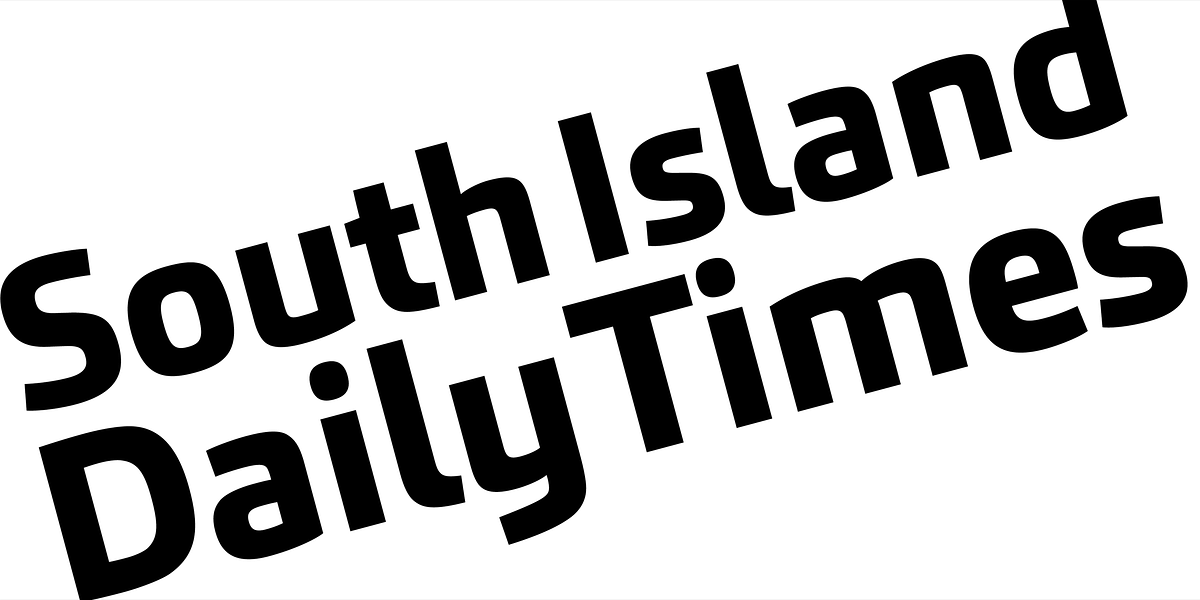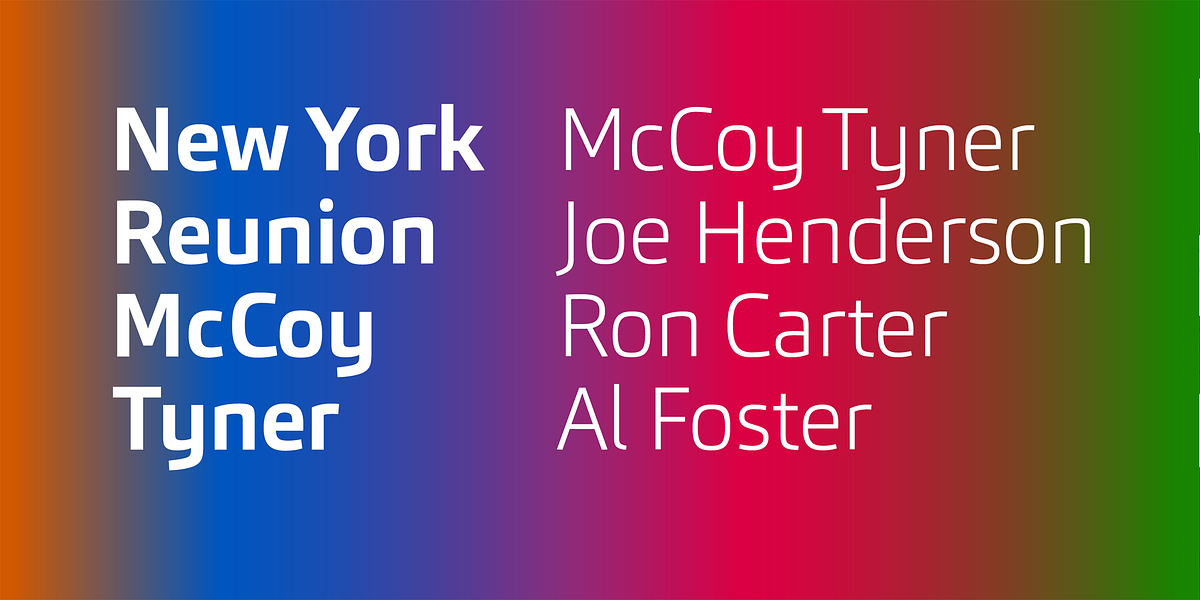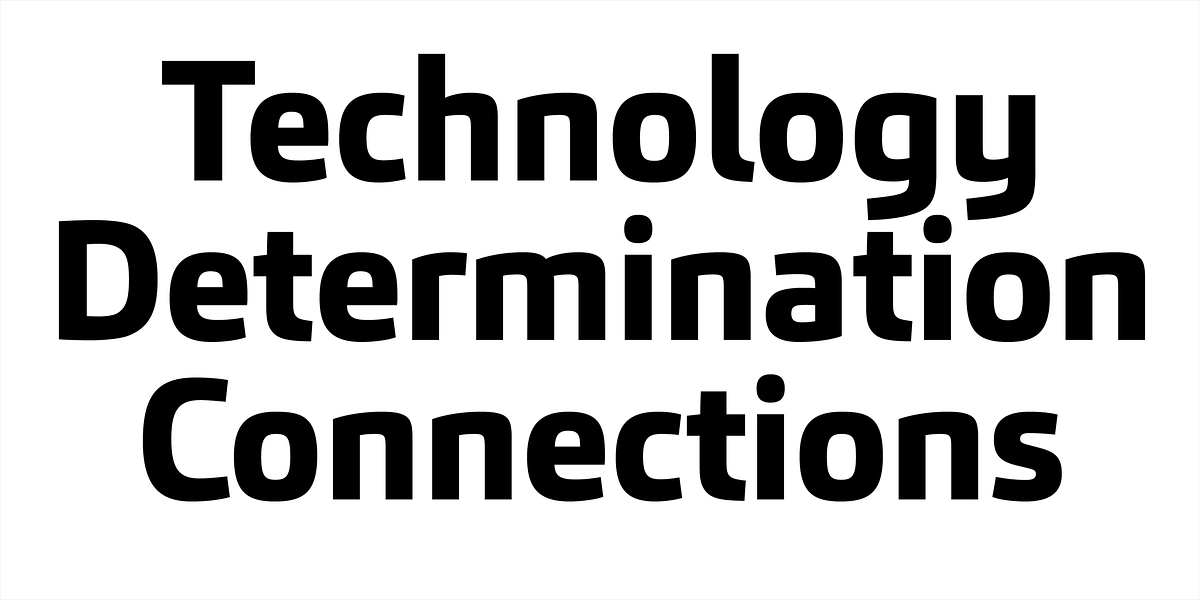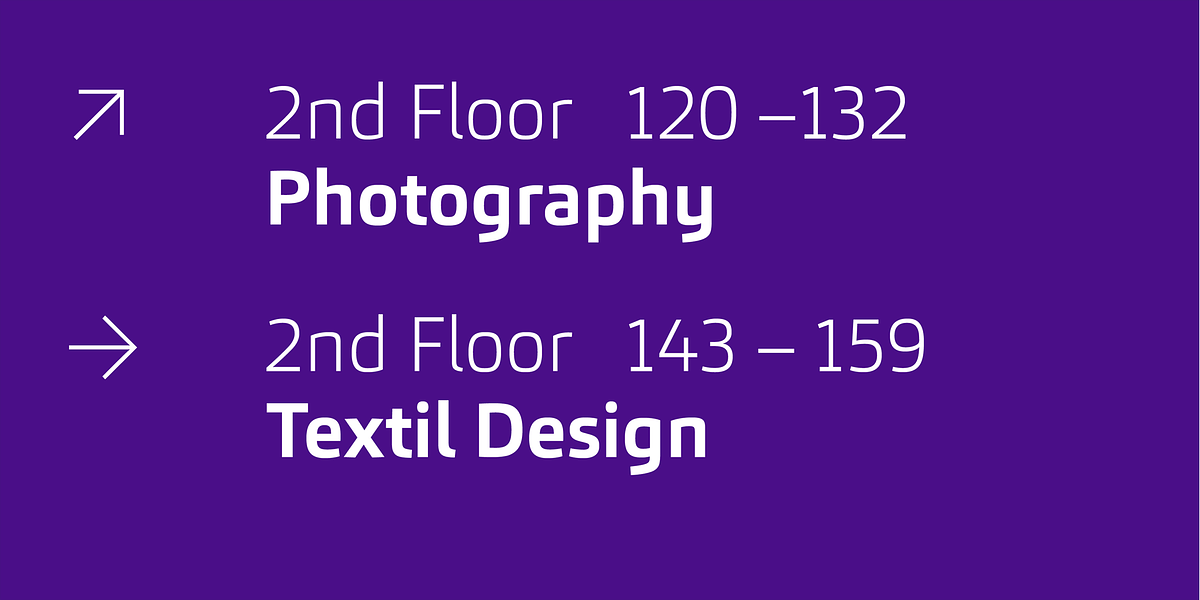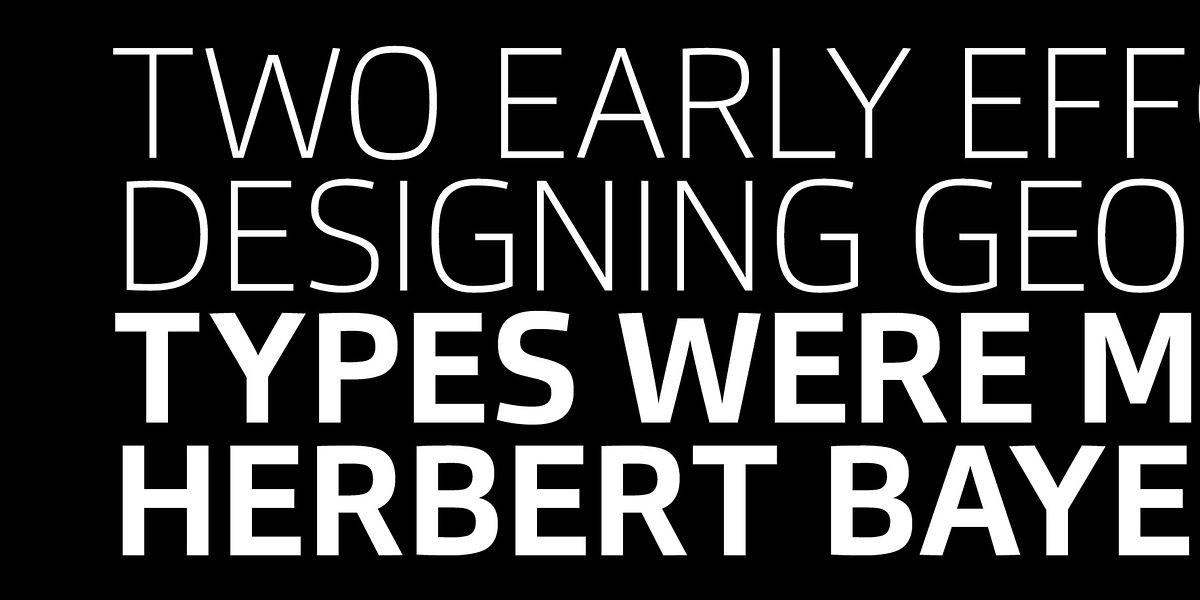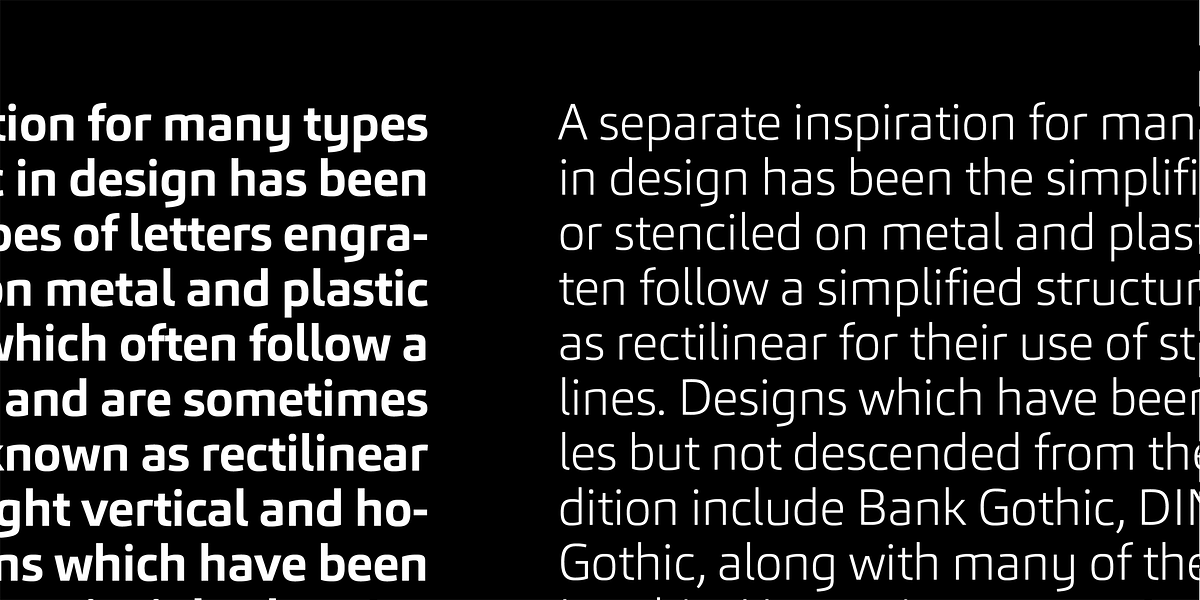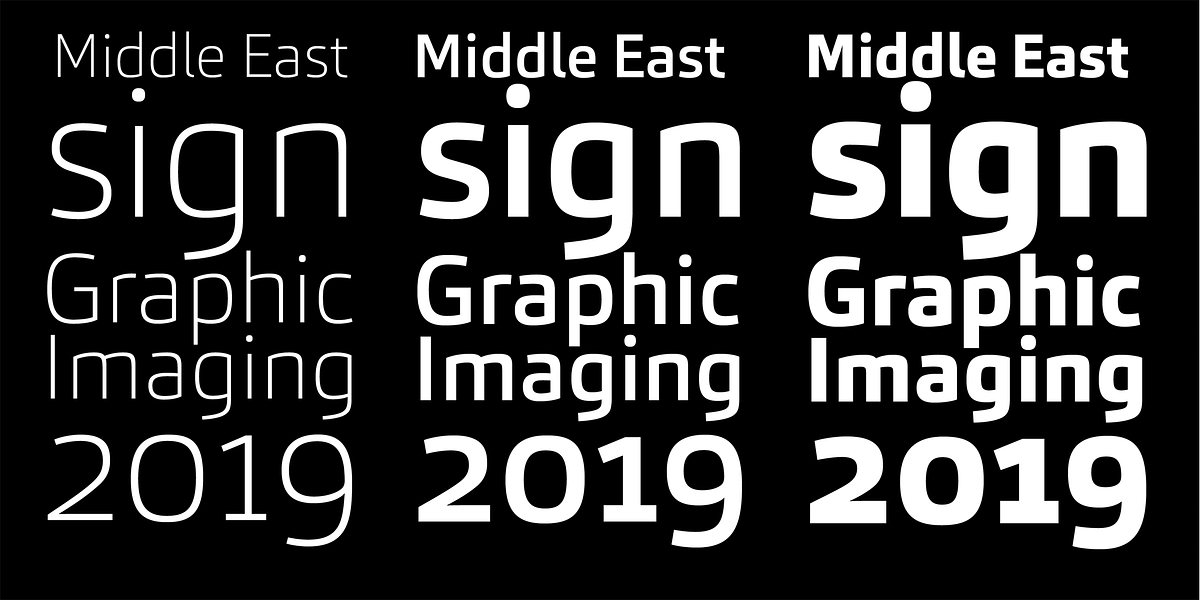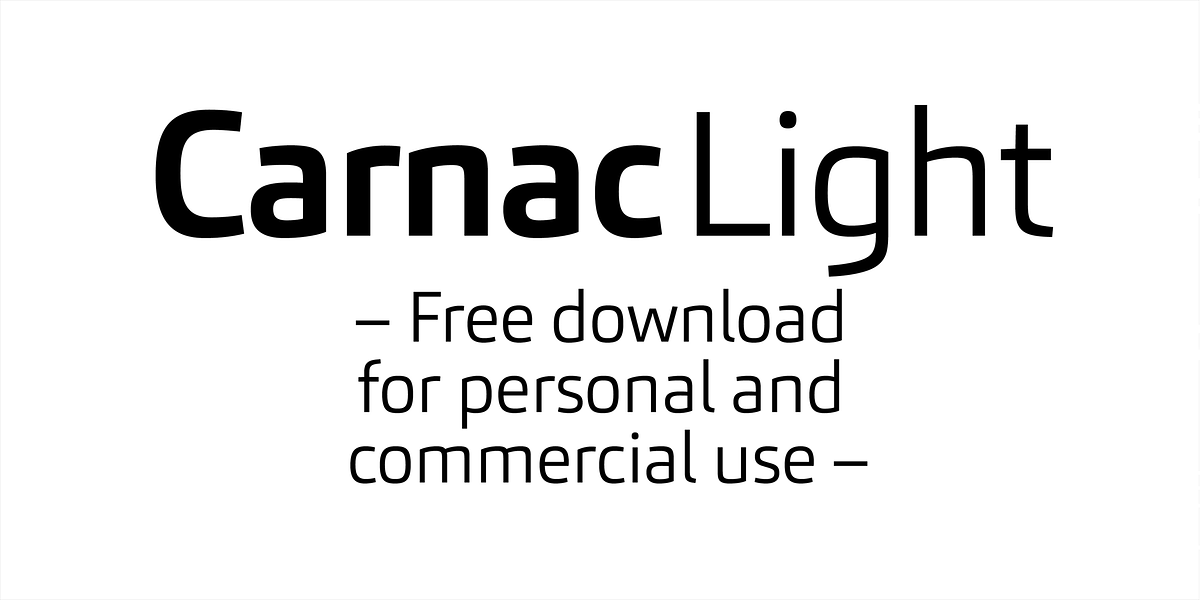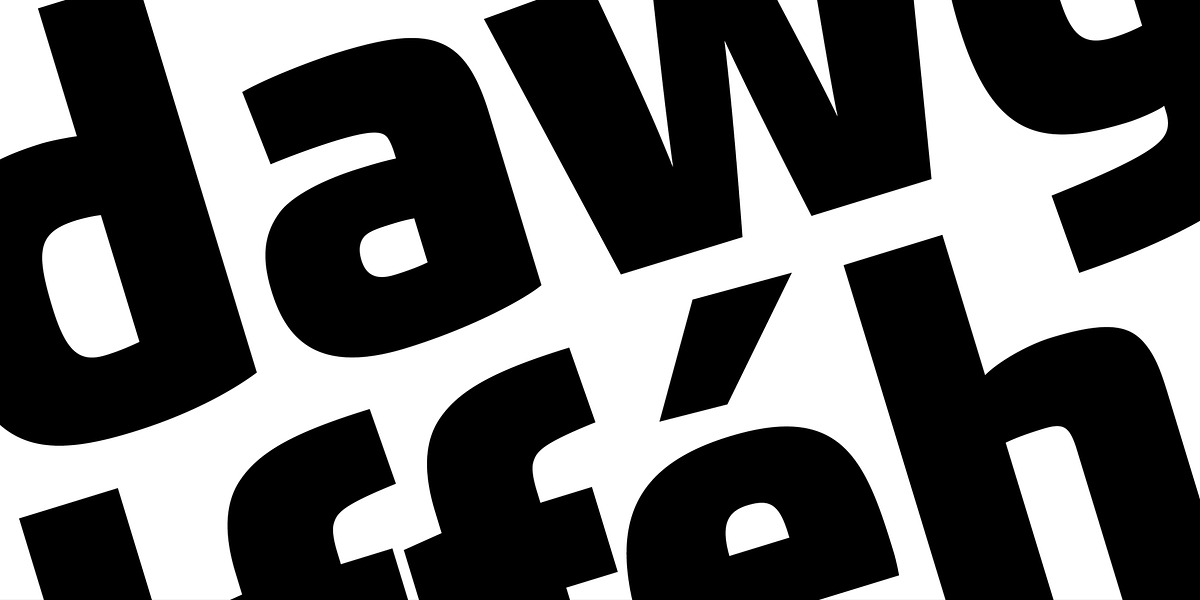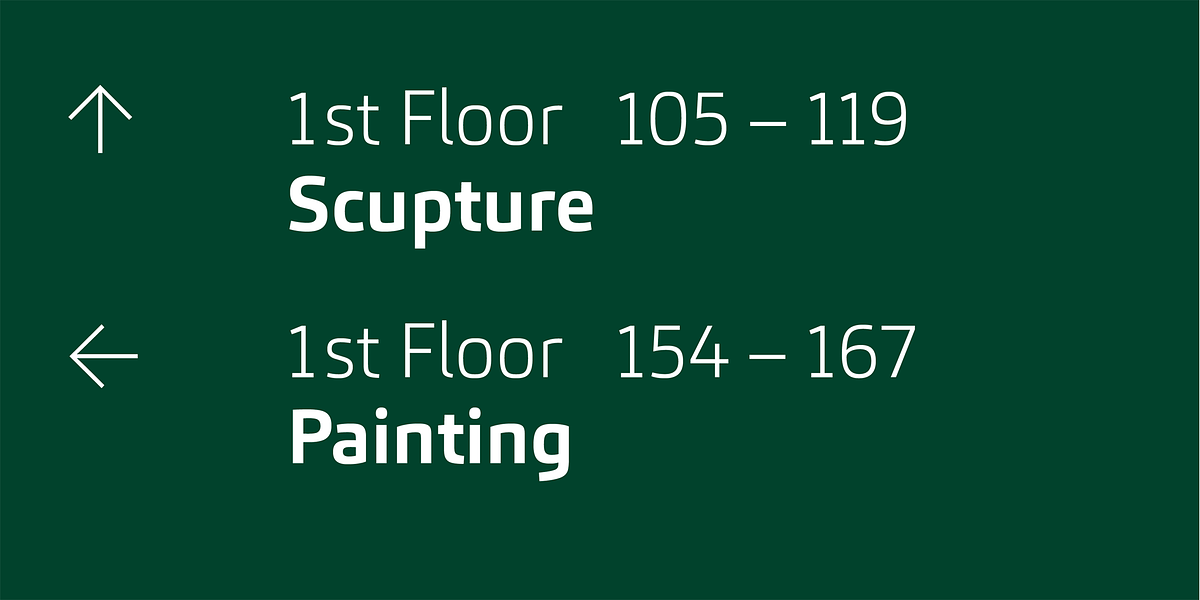
Carnac
Carnac is a neo-humanist sans serif font characterized by its clean, minimalistic design. It features squared edges and angular contours, giving it a crisp and modern feel. The font family offers a wide range of weights from Thin to Black, making it suitable for both shorter and longer text applications as well as headlines and signage.